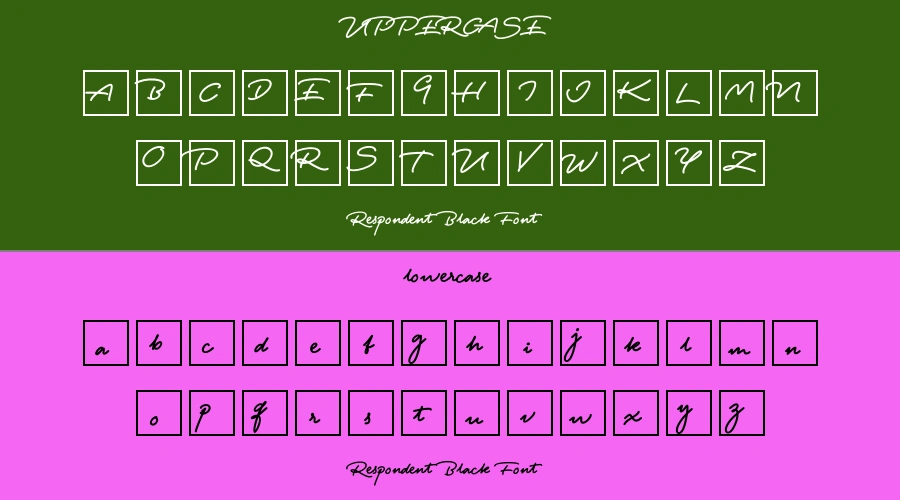
About Respondent Black Font
Designed with precision, Respondent Black Font merges script connections with artistic impact in every character. This versatility makes it particularly effective for digital signage, where originality and cultural relevance directly impact communication quality. Each letterform demonstrates meticulous craftsmanship.
Technical excellence shines through elements like brush influence and isolated forms, enhancing typographic versatility. In exhibition materials settings, Respondent Black Font proves its worth through superior compatibility. The thoughtful execution of stroke contrast and market position ensures professional results.